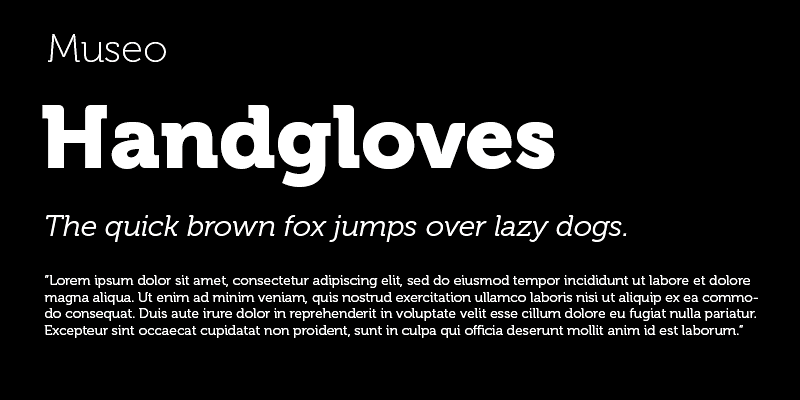
MUSEO, it all started with my love for “U”. This uppercase letter U came to me as an image in a daydream with both stems bend into semi-slab serifs. Museo is a remarkable semi-serif family with simple, open forms and highly original details.
Jos Buivenga lives and works in Arnhem. He started designing type in 1994 and started his exljbris Font Foundry ten years later. He is most known for his Museo font family and also for the way he markets his typefaces.